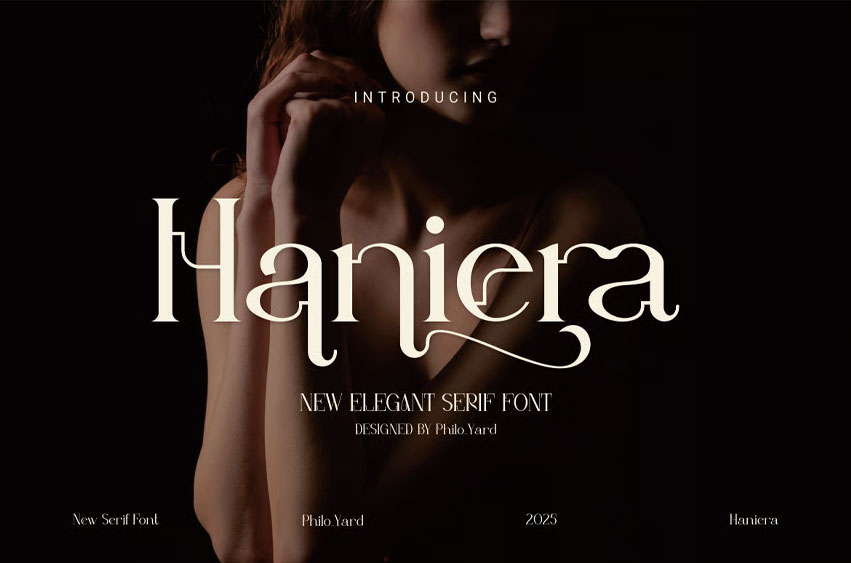
Haniera Font
Haniera Font is a modern and authentic font for professional needs and product branding. This font is suitable for various branding projects such as quotes, logos, blog headers, posters, ribbons, letters, invitations, magazines, weddings, fashion, stationery, etc.
It is designed to be versatile and flexible, so it can be used in various projects and media in various contexts.